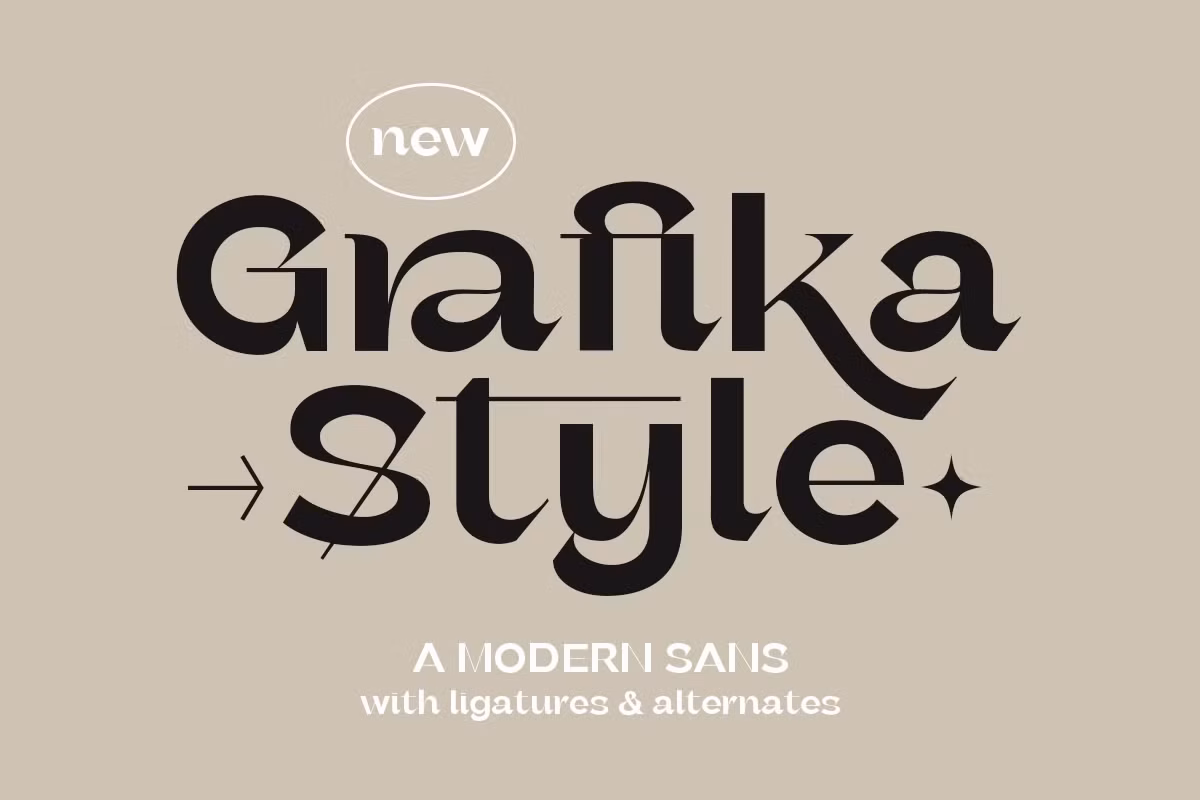
Grafika – Modern Sans Font is perfect for contemporary branding projects, clean logo design, modern website typography, sleek advertising campaigns, minimalist packaging design, tech startup materials, progressive business communications, architectural firm branding, innovative product labeling, cutting-edge editorial layouts, sophisticated signage systems, and forward-thinking design applications.
Grafika – Modern Sans Font is exciting because it embodies the essence of contemporary graphic design through its precisely engineered letterforms that represent the perfect fusion of geometric clarity and modern sophistication, creating typography that feels both timeless and thoroughly current. This exceptional typeface features clean geometric proportions with subtle contemporary refinements that reflect the precision and innovation of modern graphic design principles. The font's sophisticated aesthetic speaks directly to audiences who appreciate design excellence, technological advancement, and the pure functionality that defines contemporary visual communication.
Grafika – Modern Sans Font includes comprehensive font families: Regular Modern Style, Bold Contemporary Weight, Light Minimalist Touch, Medium Balanced Format, Italic Dynamic Slant, Condensed Efficient Width, Extended Progressive Format, Ultra Light Version, Black Impact Style, and Special Modern Symbols, providing complete solutions for contemporary design needs and progressive brand communications that demand geometric precision and modern sophistication.
This cutting-edge typography solution transforms standard communications into contemporary design statements through its geometric aesthetic and modern design principles. Grafika – Modern Sans Font Free Download enables designers and progressive brands to access premium modern sans typography that instantly adds sophistication, clarity, and contemporary appeal to any creative project. The font's meticulously engineered proportions ensure perfect readability while maintaining distinctive modern character and geometric precision.
Design agencies, tech companies, and innovative businesses trust Grafika – Modern Sans Font for its ability to communicate modernity, precision, and design excellence to audiences seeking cutting-edge experiences and contemporary brand interactions. The typeface's clean construction performs exceptionally well across various applications, from intimate modern communications to large-scale progressive campaigns. Its extensive character support includes multilingual capabilities and modern design elements that enhance contemporary brand presentations.
The design philosophy behind Grafika – Modern Sans Font celebrates the evolution of graphic design and the pursuit of typographic perfection through geometric precision and contemporary innovation. This modernity-focused approach creates a font that feels genuinely contemporary while maintaining timeless appeal across different modern contexts and progressive brand expressions.